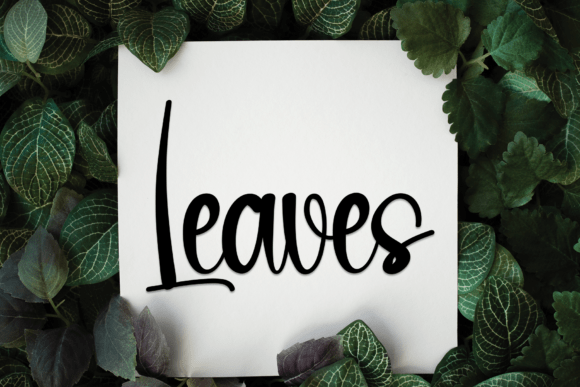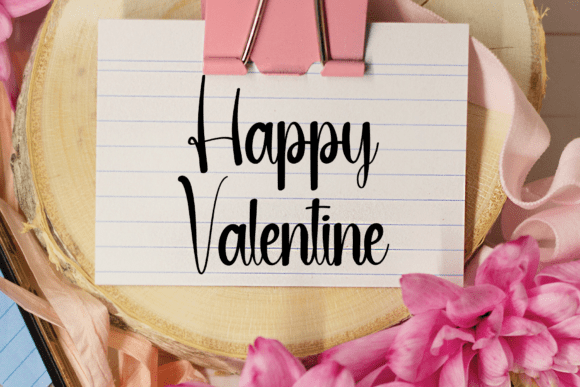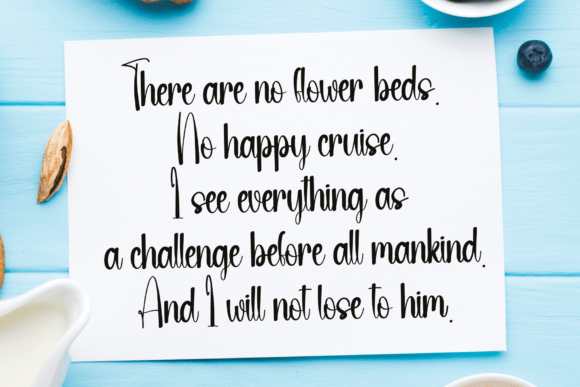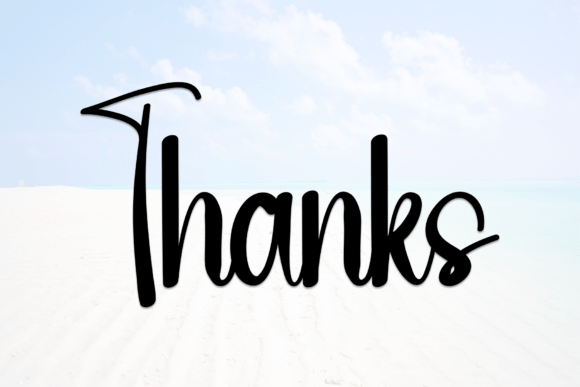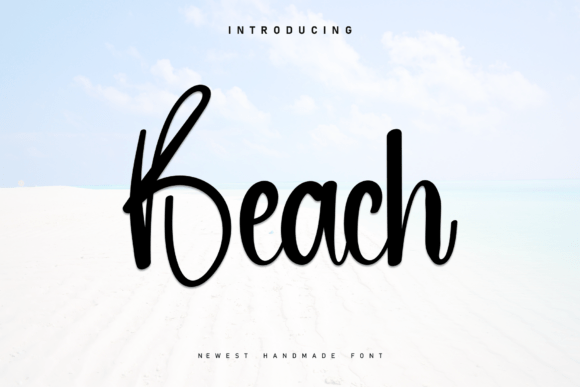
Introducing Beach Font: The Sweet and Beautiful Handwritten Font for Your Design Projects
Are you looking for a font that can add a touch of warmth and coziness to your design projects? Look no further than Beach Font, a sweet and beautiful handwritten font that is sure to make your designs stand out. With its unique and playful characters that dance along the baseline, Beach Font is the perfect choice for designers and crafters who want to add a personal touch to their work.
What Makes Beach Font Special?
Beach Font is a carefully crafted handwritten font that features characters that are designed to dance along the baseline. This unique design element gives the font a playful and whimsical feel that is perfect for adding a touch of personality to your designs. Whether you’re working on a project for a client or creating something for your own personal brand, Beach Font is sure to make your designs stand out.
One of the things that sets Beach Font apart from other fonts is its ability to add a cozy accent to any design project. The font’s handwritten feel and playful characters make it perfect for use in a variety of design projects, from invitations and greeting cards to blog posts and social media graphics.
Beach Font is a versatile font that is perfect for use in a wide range of design projects. Whether you’re a professional designer or a crafter who loves to create things in your free time, Beach Font is a great choice. The font is easy to use and can be installed on your computer or used online, making it a convenient choice for anyone who needs a high-quality handwritten font.
Designers will love Beach Font for its unique and playful feel, which makes it perfect for use in a variety of design projects. From branding and packaging to web design and social media graphics, Beach Font is a great choice for any designer who wants to add a personal touch to their work.
Crafters will also love Beach Font for its ability to add a touch of personality to their handmade projects. Whether you’re making cards, scrapbooking, or creating other handmade items, Beach Font is a great choice. The font’s handwritten feel and playful characters make it perfect for use in a variety of craft projects.
Key Features of Beach Font
Here are some of the key features that make Beach Font a great choice for designers and crafters:
- Sweet and beautiful handwritten font: Beach Font is a carefully crafted handwritten font that features characters that are designed to dance along the baseline.
- Playful and whimsical feel: The font’s unique design element gives it a playful and whimsical feel that is perfect for adding a touch of personality to your designs.
- Cozy accent: Beach Font is perfect for adding a cozy accent to any design project, making it a great choice for designers and crafters who want to create warm and inviting designs.
- Versatile: Beach Font is a versatile font that is perfect for use in a wide range of design projects, from invitations and greeting cards to blog posts and social media graphics.
- Choose the right size and style: Beach Font comes in a variety of sizes and styles, so choose the one that works best for your design project.
- Experiment with different colors and textures: Beach Font looks great in a variety of colors and textures, so don’t be afraid to experiment and find the look that works best for your design.
- Pair with other fonts: Beach Font pairs well with other fonts, so try pairing it with a bold font or a sans-serif font to create a unique and interesting design.
Beach Font is a sweet and beautiful handwritten font that is perfect for designers and crafters who want to add a touch of warmth and coziness to their design projects. With its unique and playful characters that dance along the baseline, Beach Font is sure to make your designs stand out. Whether you’re working on a project for a client or creating something for your own personal brand, Beach Font is a great choice. So why wait? Download Beach Font today and start creating beautiful and unique designs that will leave a lasting impression.